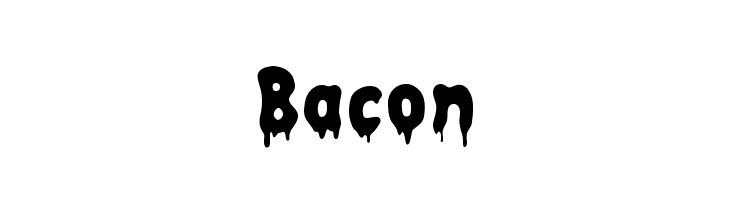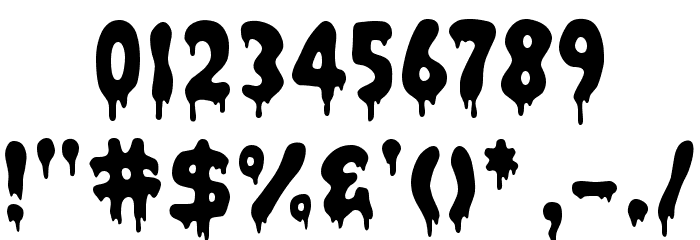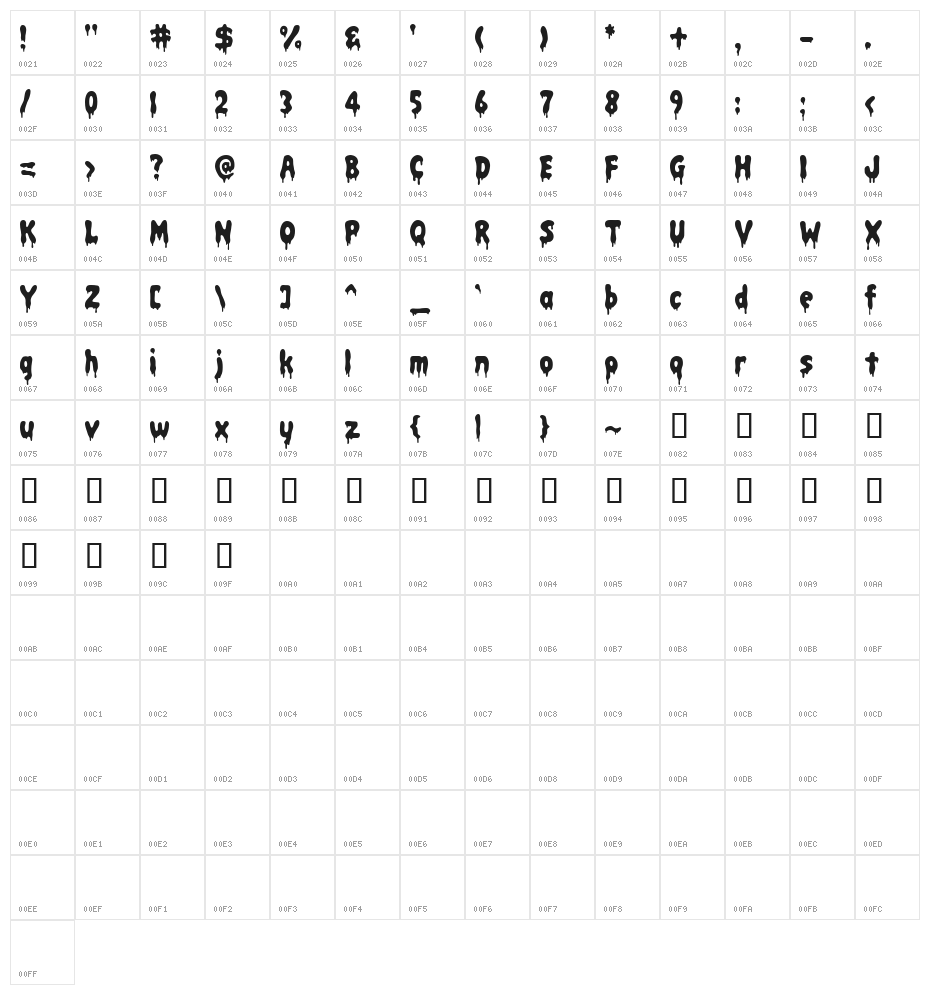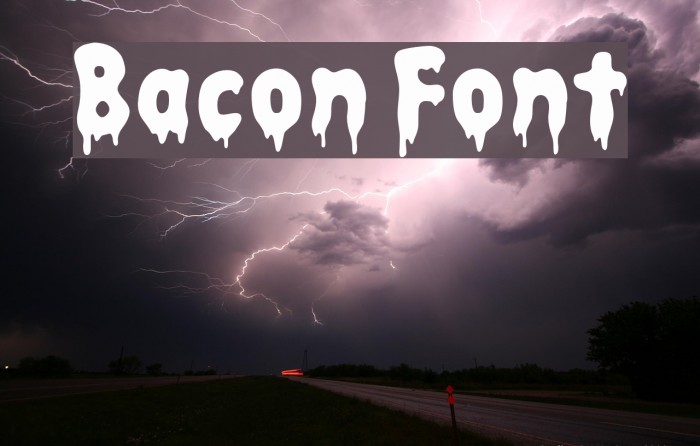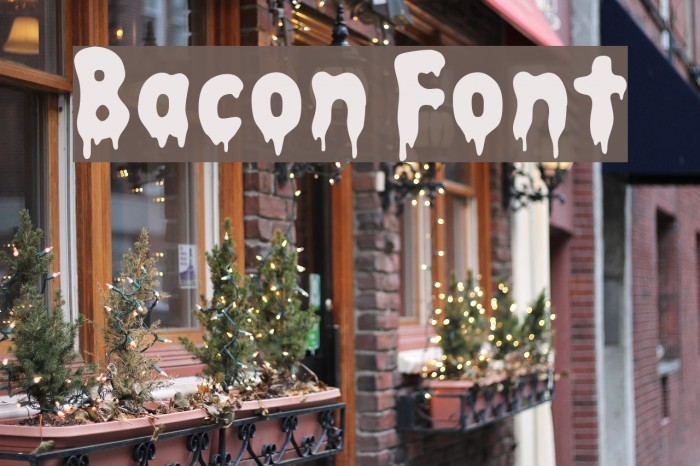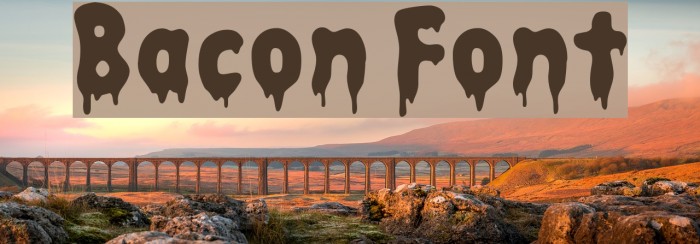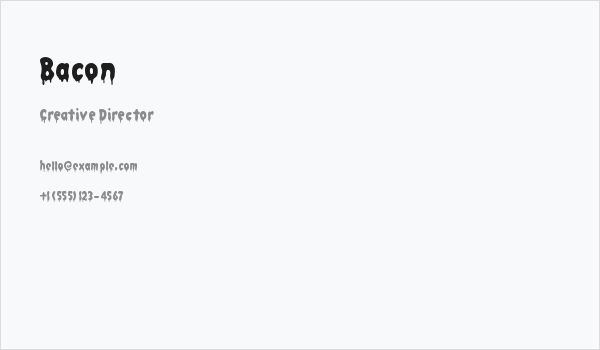
Bacon Font
Bacon Description
This font features a unique, dripping effect that gives each character a melting appearance, reminiscent of liquid or slime. The bold, rounded letters have a playful yet eerie vibe, making it ideal for Halloween-themed designs or projects that require a spooky, unconventional look. The uppercase and lowercase letters maintain a consistent style, with numbers and special characters also following the same dripping motif. The overall design is eye-catching and distinct, perfect for grabbing attention in creative projects.
| Use Case | Headlines, Posters, Logos |
| Proposed Projects | Ideal for Halloween posters, horror-themed invitations, spooky merchandise, or any creative project needing a unique, eye-catching typeface. |